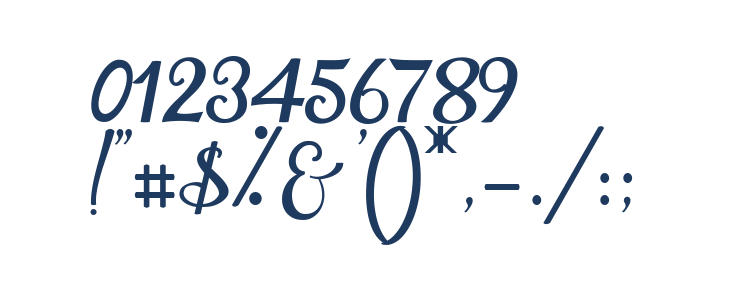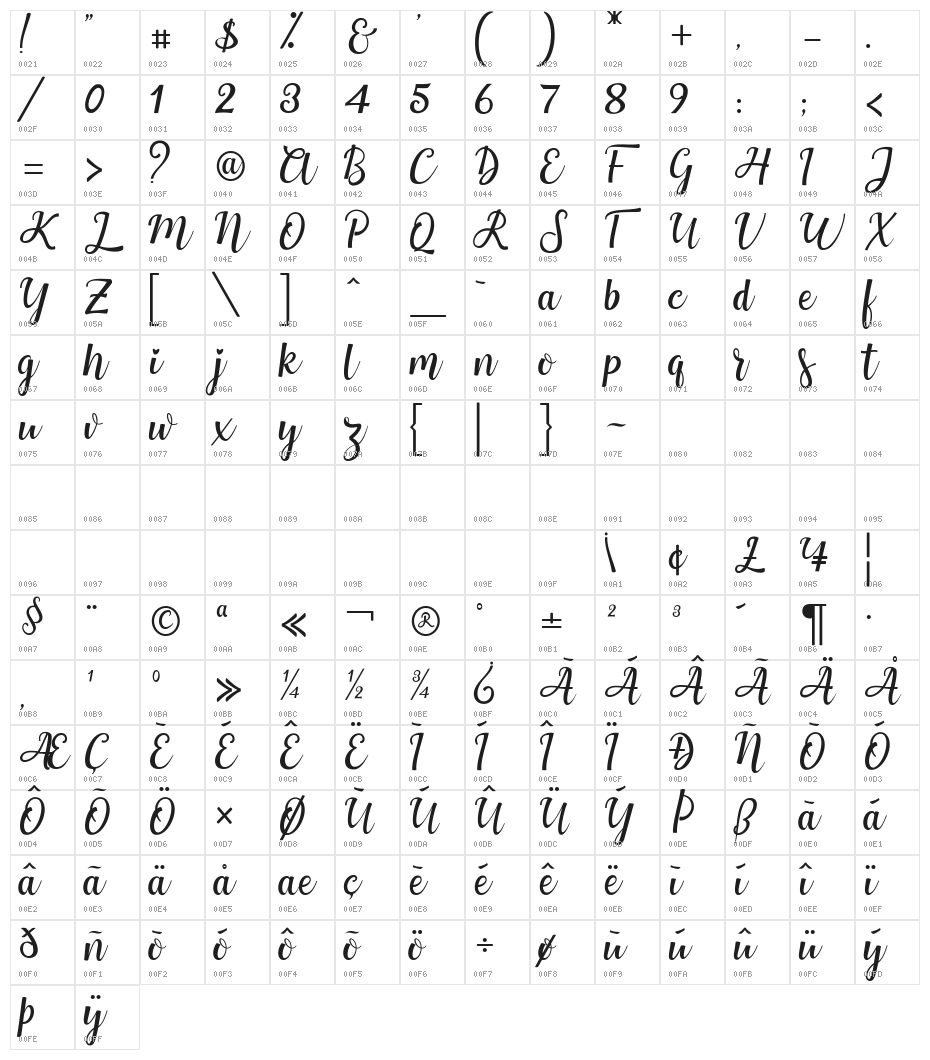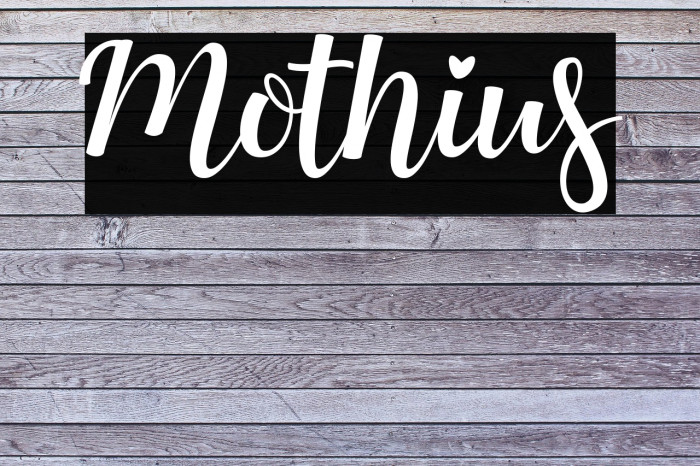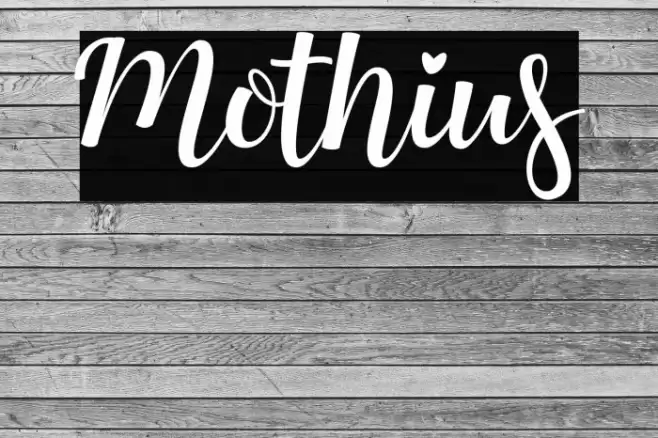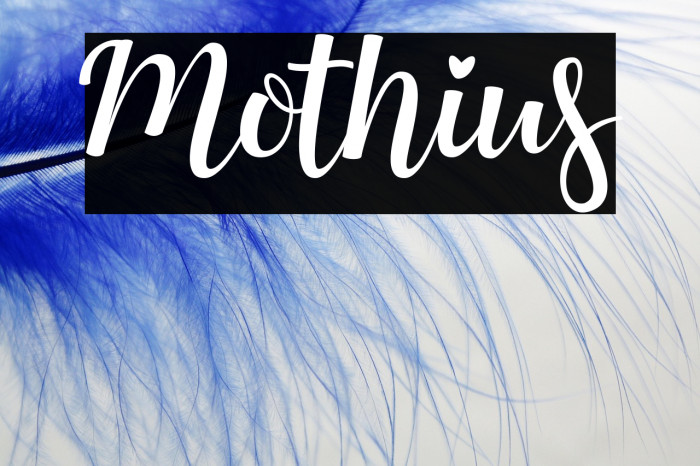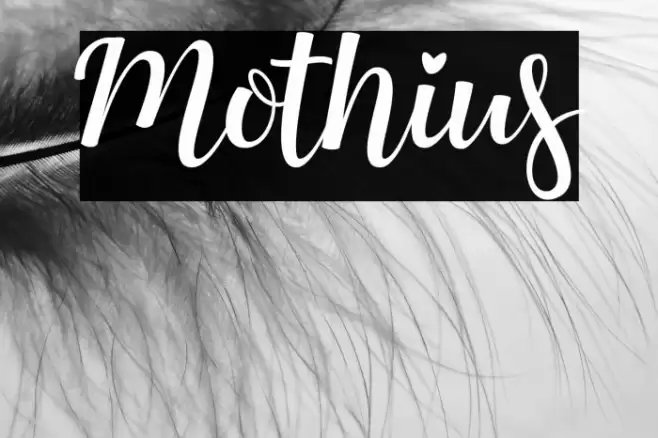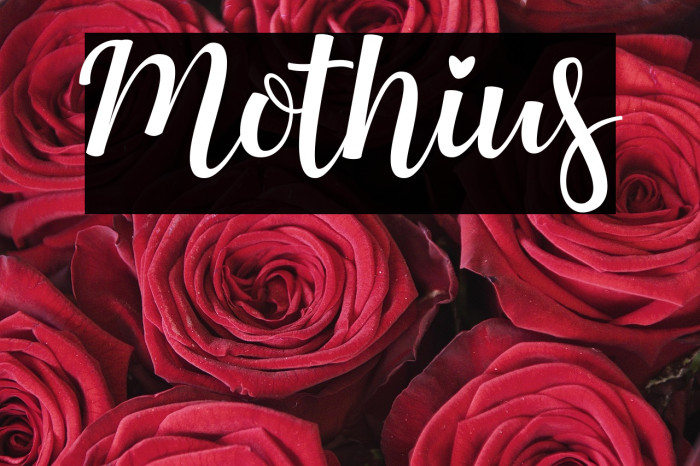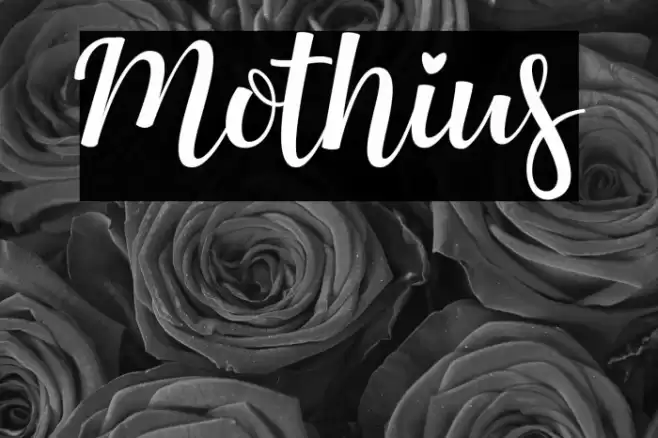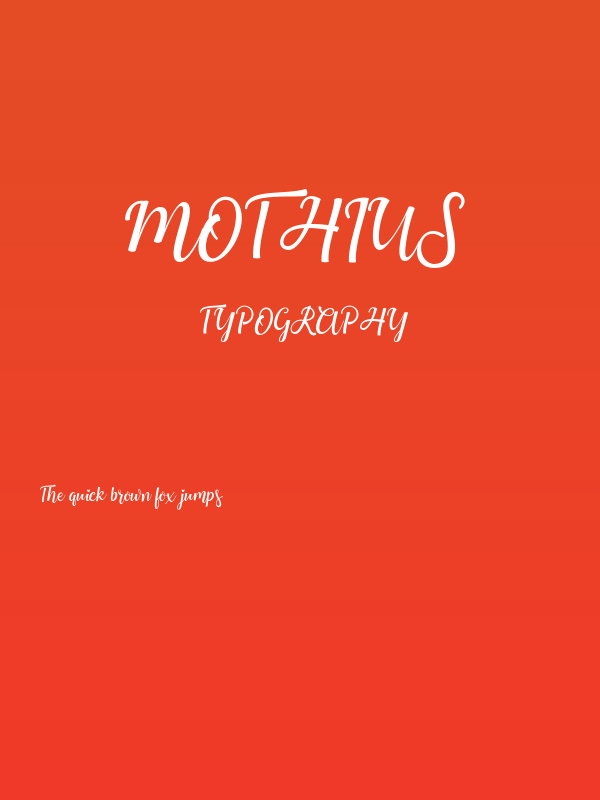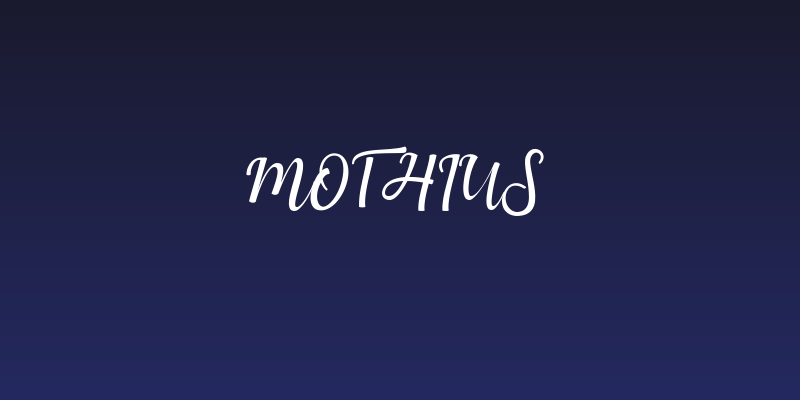
Mothius Font
Mothius Description
This font features a dynamic and flowing script style, characterized by its elegant and fluid letterforms. The uppercase letters exhibit a graceful, cursive appearance with smooth curves and a slight slant, giving them a sophisticated and stylish look. The lowercase letters maintain a consistent flow, with some characters featuring unique loops and swashes that add a touch of flair. The numerals are bold and slightly rounded, complementing the overall script aesthetic. Special characters are well-integrated, maintaining the font's cohesive style. This font's design is both expressive and versatile, making it suitable for a variety of creative applications.